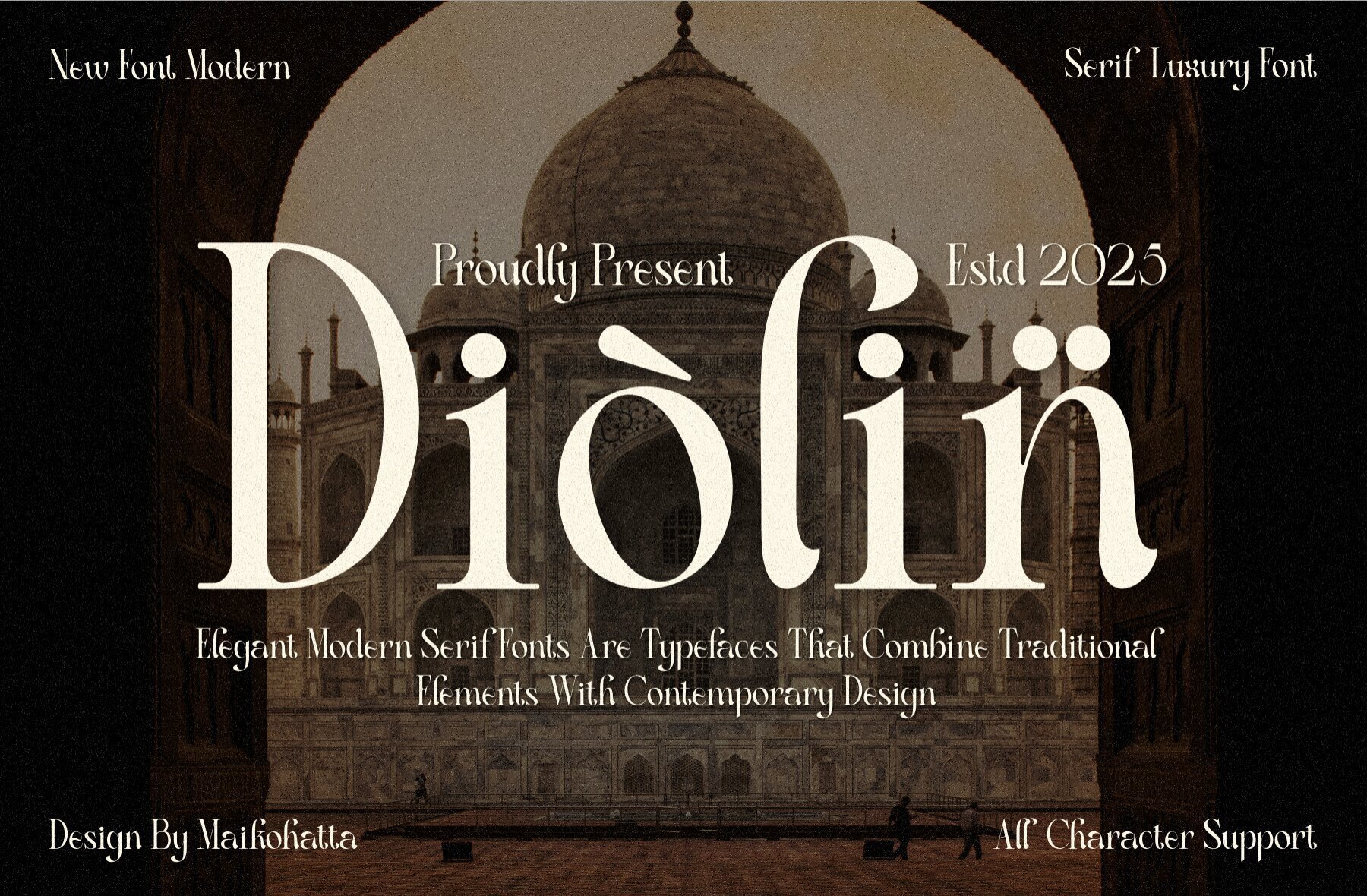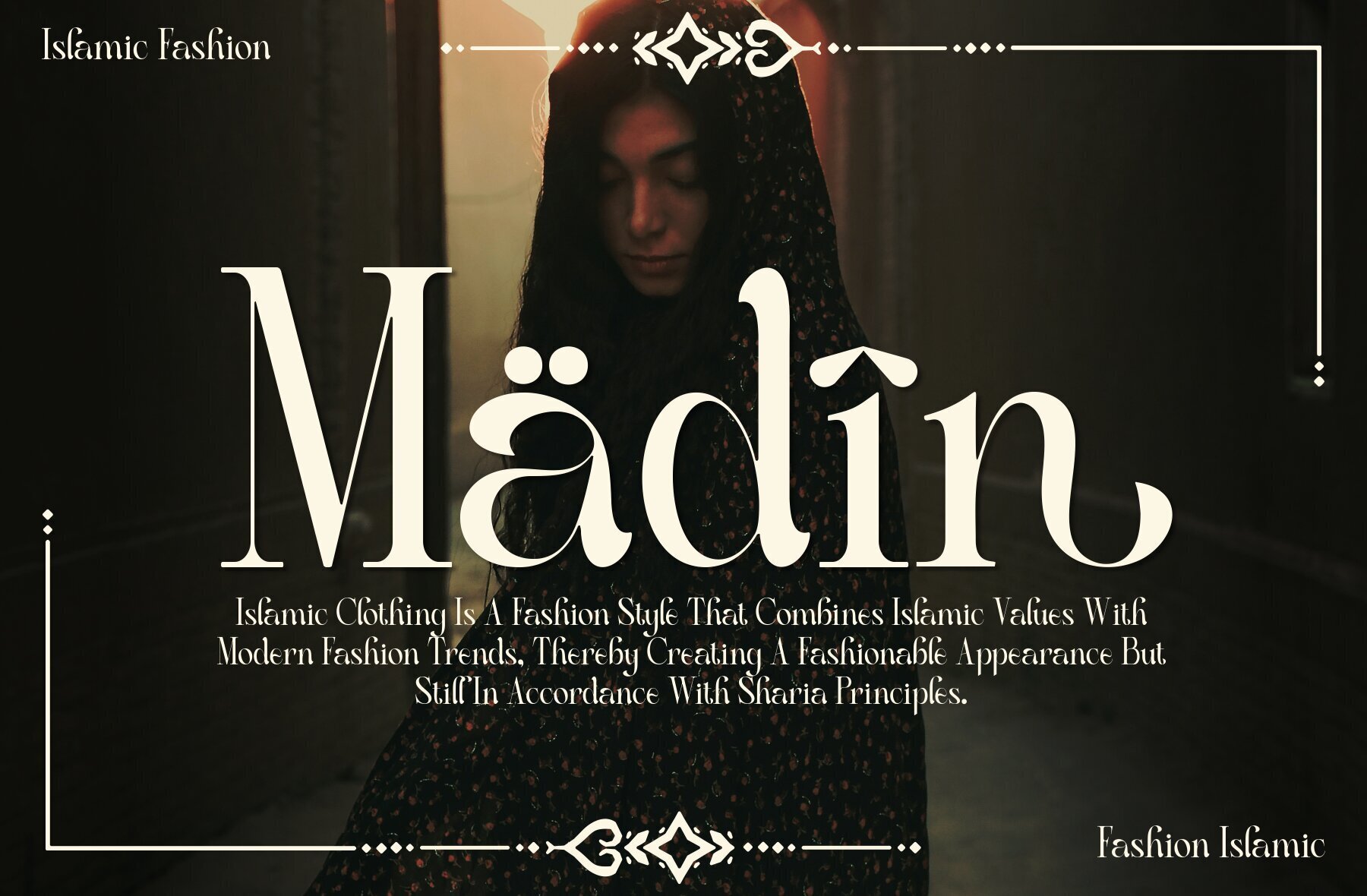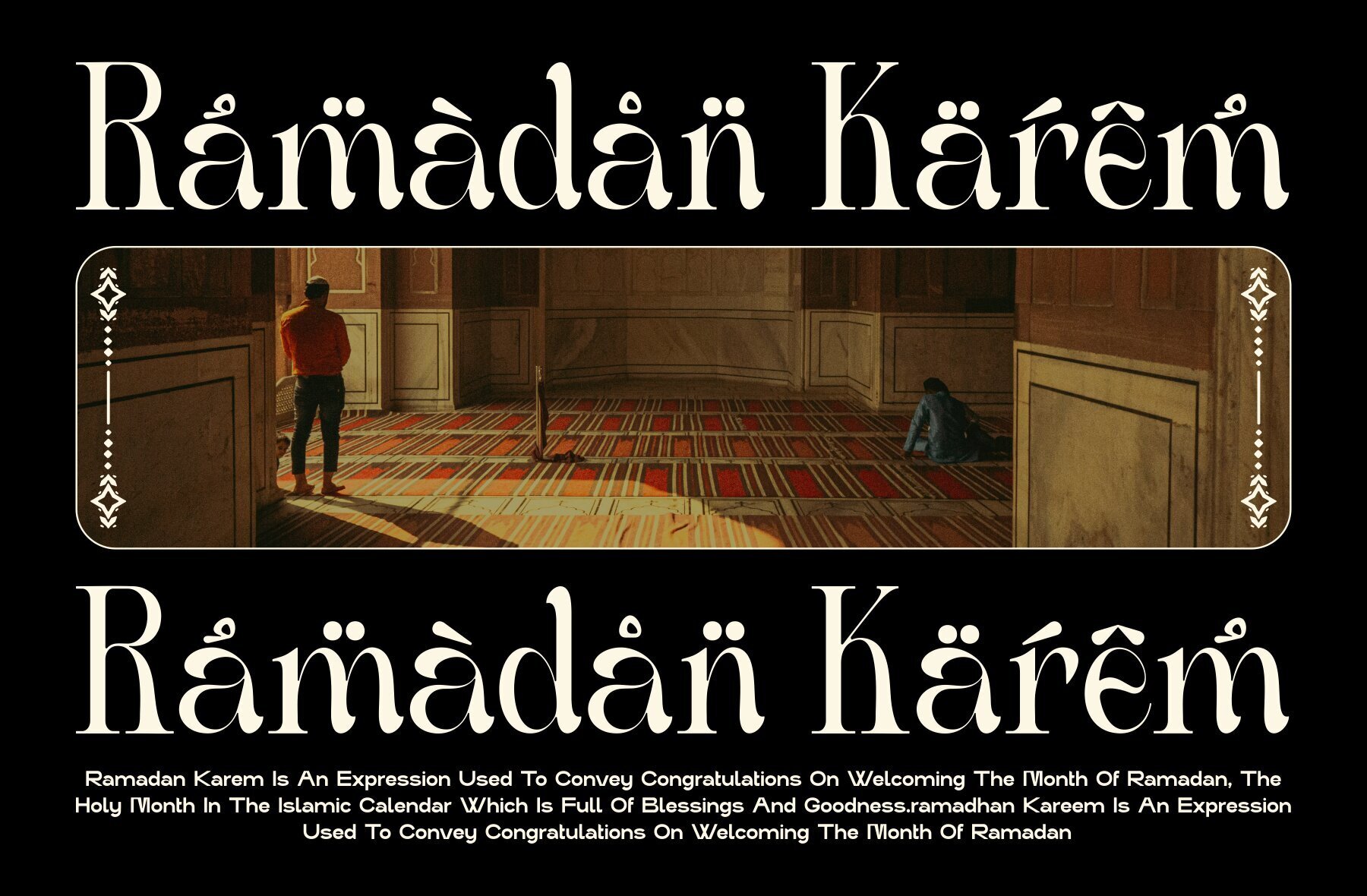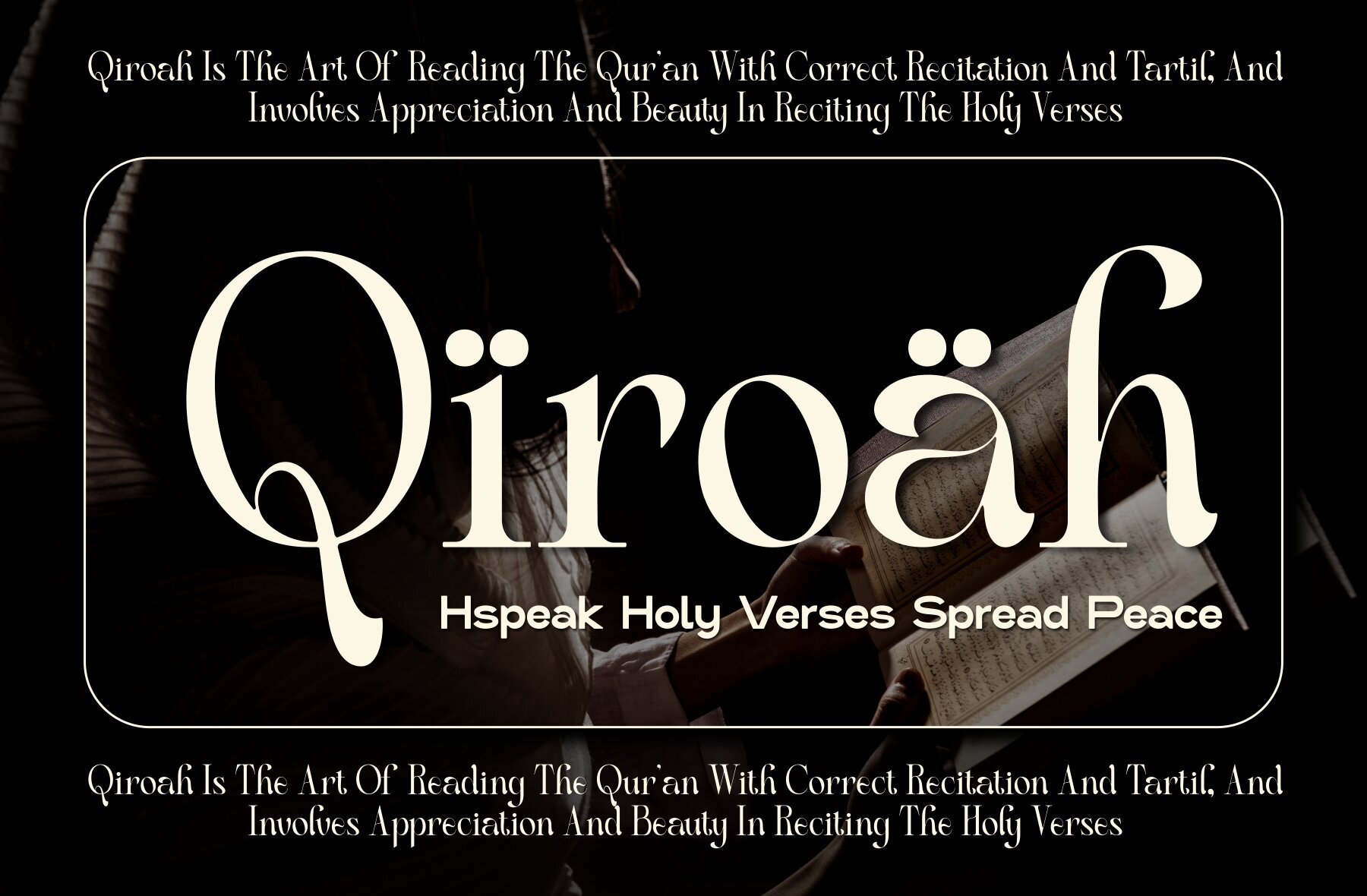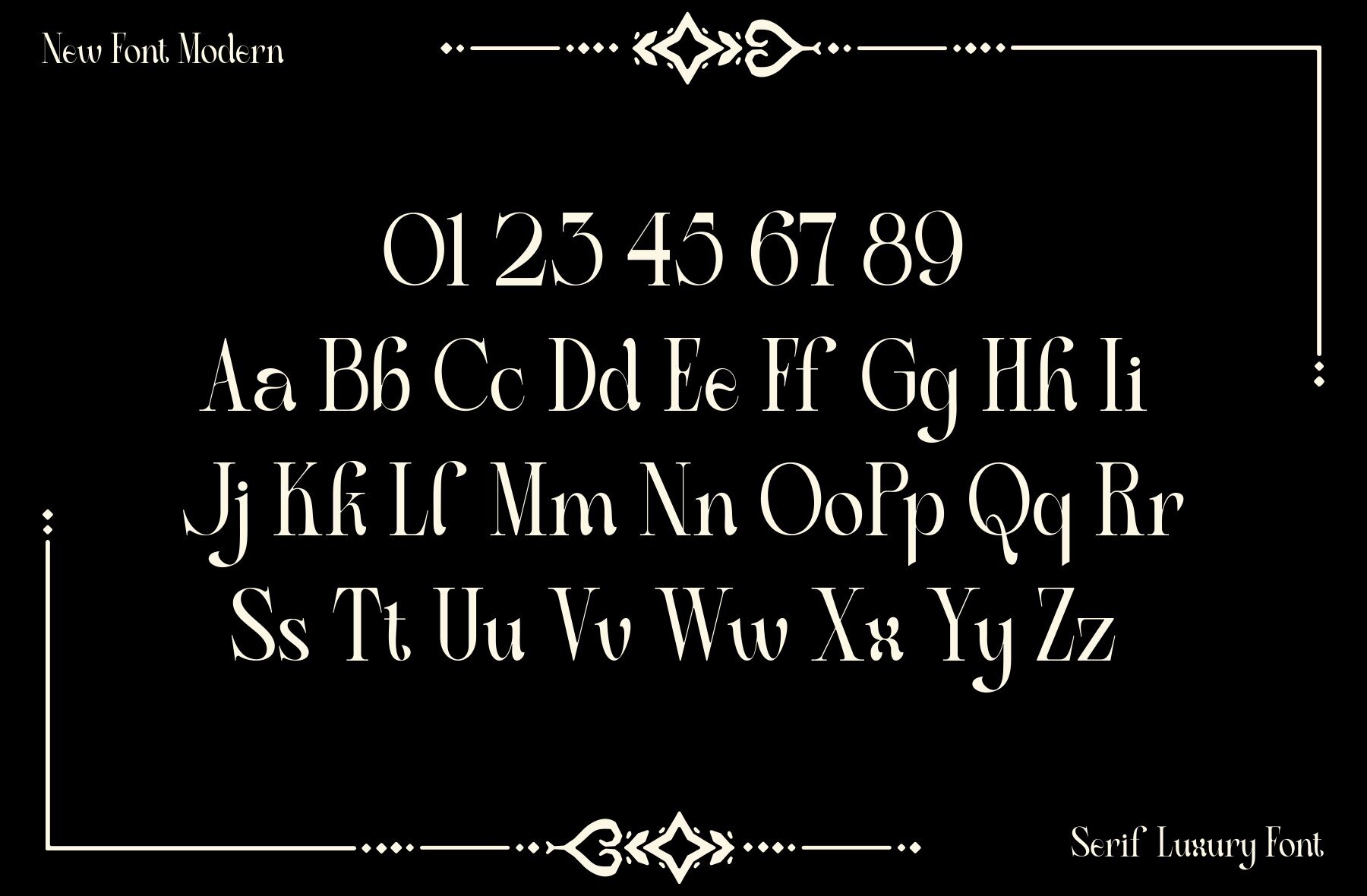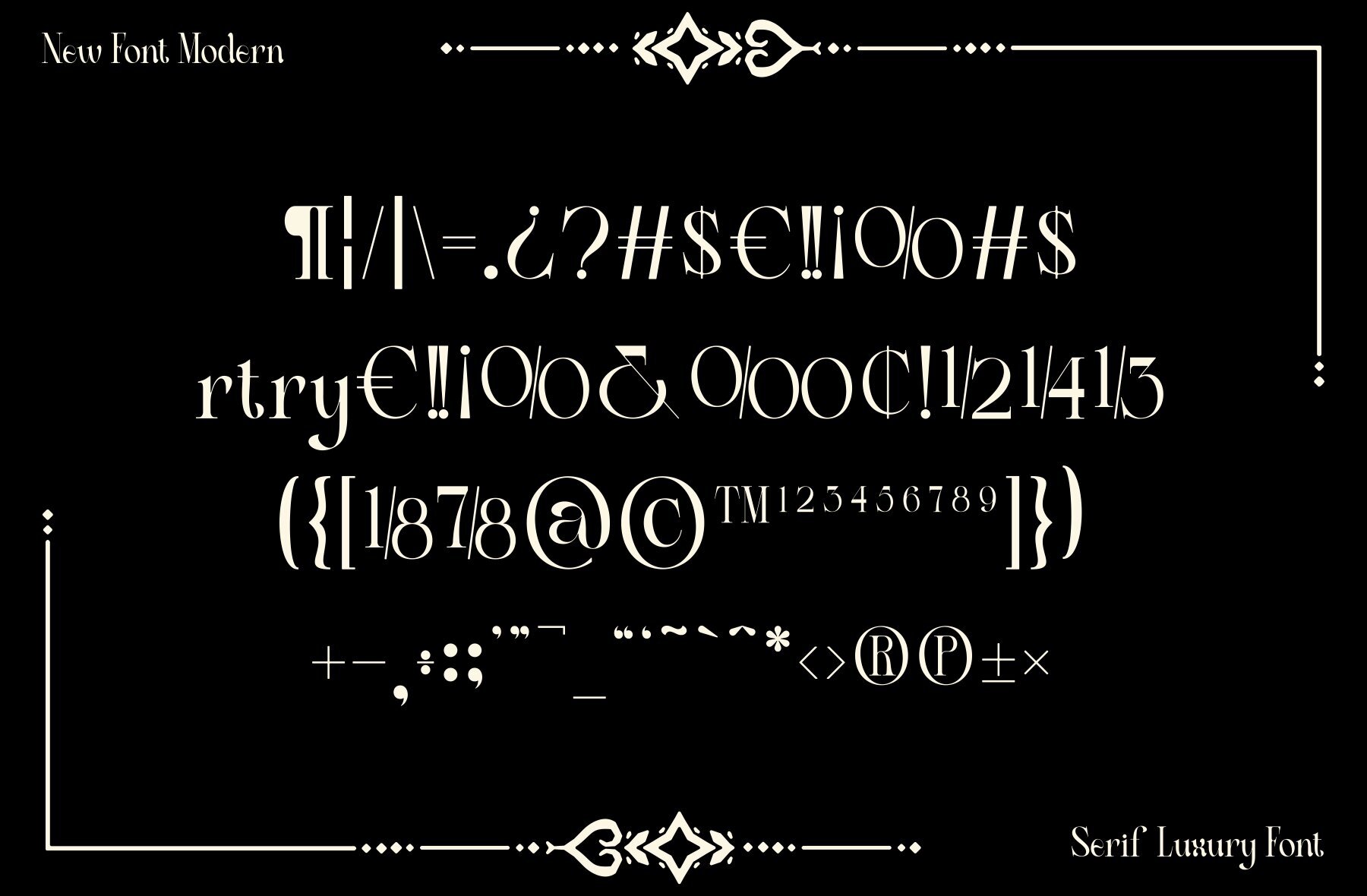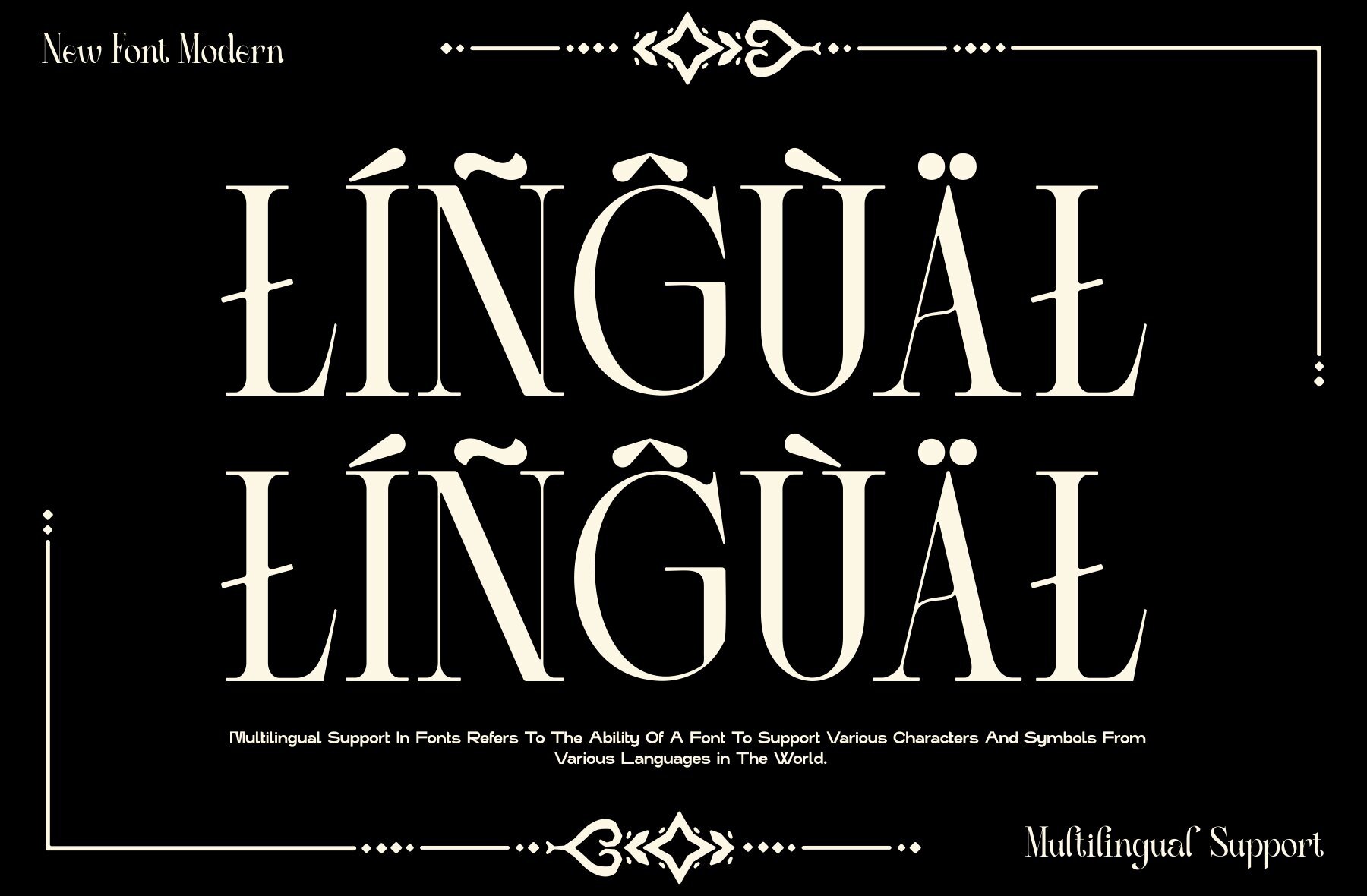
Diolin Font
Diolin
Diolin is a modern luxury serif font that commands attention with its balanced stroke proportions, combining thick and thin lines for a visually appealing and easy-to-read experience. This elegant serif introduces a distinctive contrast in line weights, bringing sophistication to any design project while maintaining an understated yet striking appearance.
Diolin offers a comprehensive selection of features to enhance your creativity, including uppercase and lowercase characters, multilingual support, ligatures, and alternate styles. This versatility makes it an ideal choice for designers seeking to create refined and dynamic visuals across various languages and contexts.